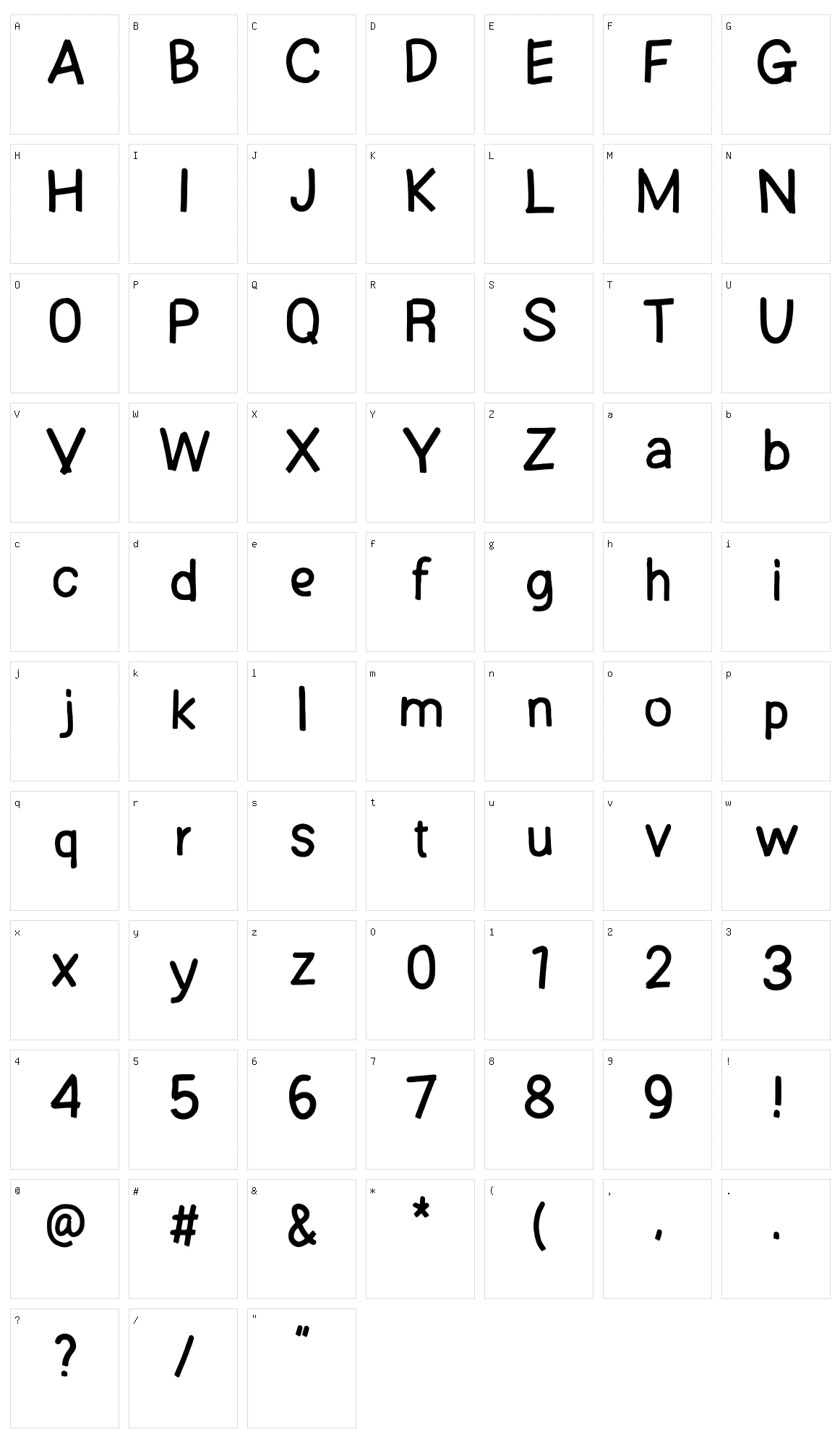
The free font Joshbrush is carefully designed by Ahmad Dindin, showcasing a thoughtful balance of creativity and usability and falls under the Script font style. When you download the ZIP file, it contains only 29.95 KB of font files, making it lightweight and quick to download. Please review the license details below to understand permitted usage and distribution rights. If license information is not available, we recommend using this font for personal projects only or contacting the author directly for commercial usage permissions.